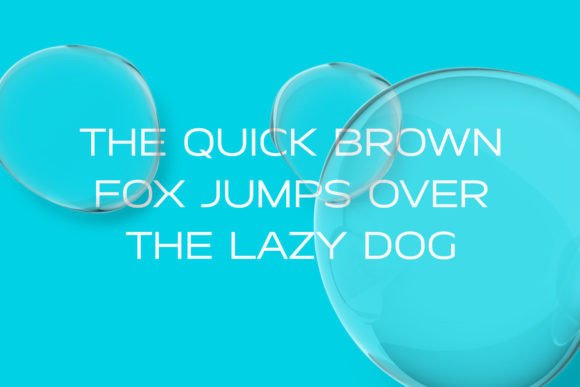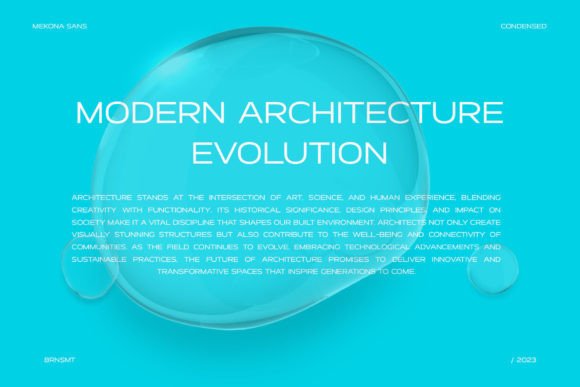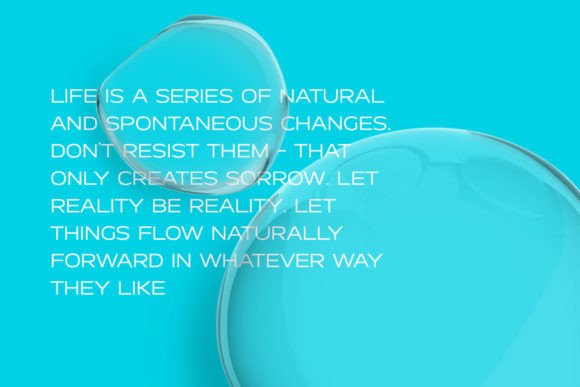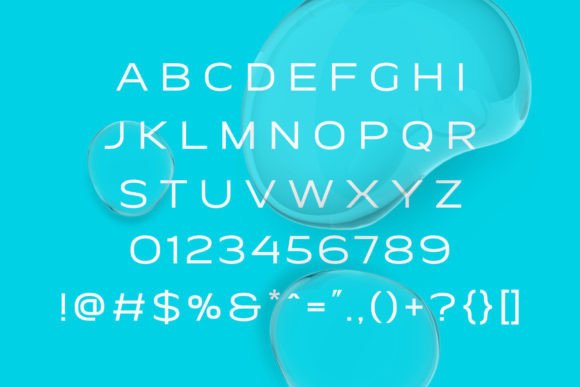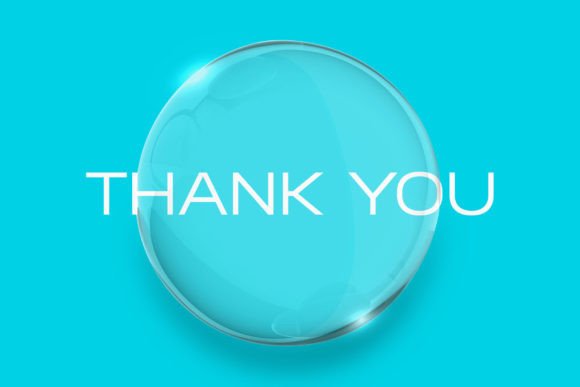
Introduction to Mekona Font
Introducing Mekona Modern Display Sans Serif Mekona is a modern and simple font, best used as a display for headings, logos, branding, magazines, product packaging, and invitations.
Mekona comes with clean lines and smooth curves giving any project an extra touch of class .
Key Features of Mekona Font